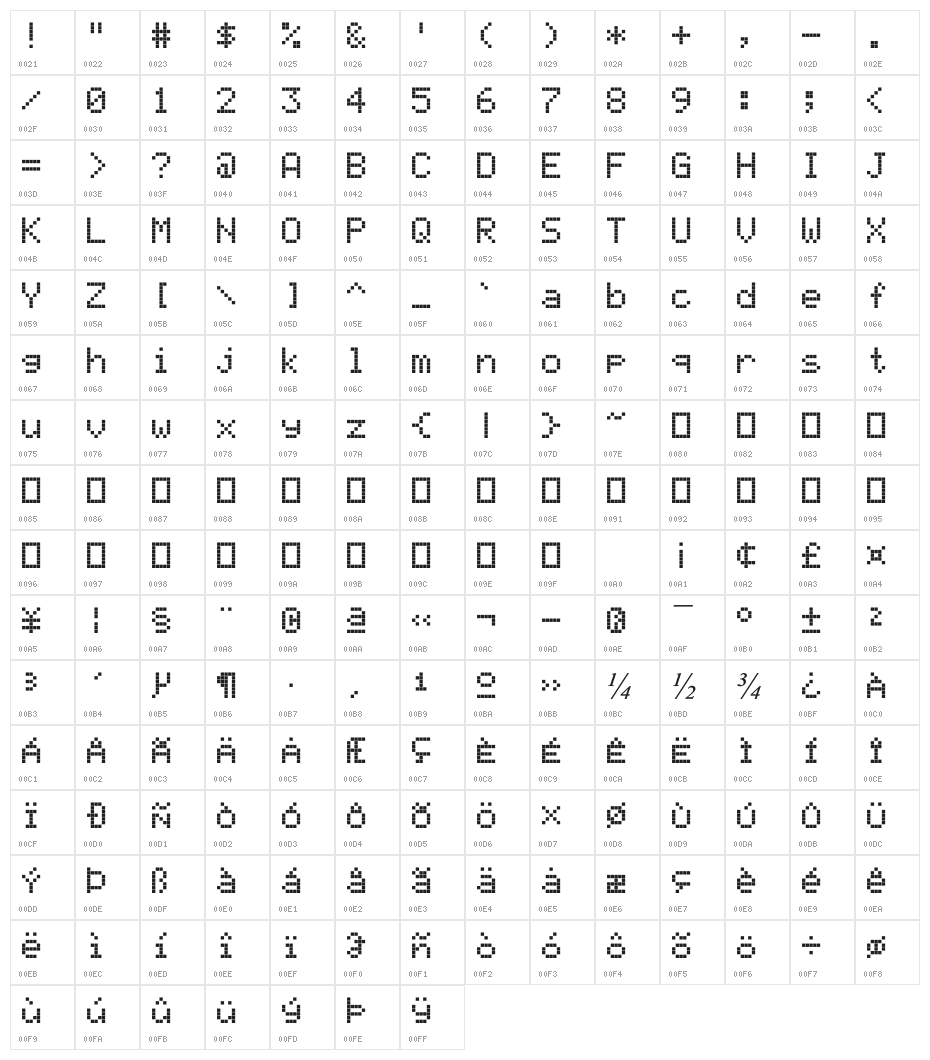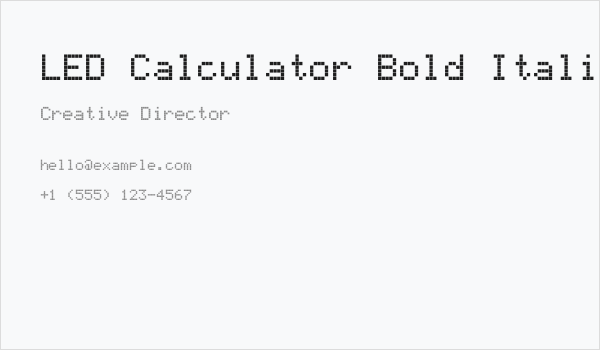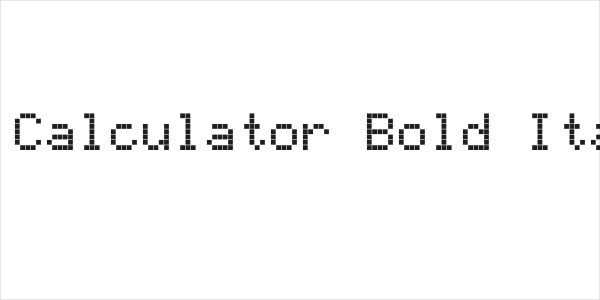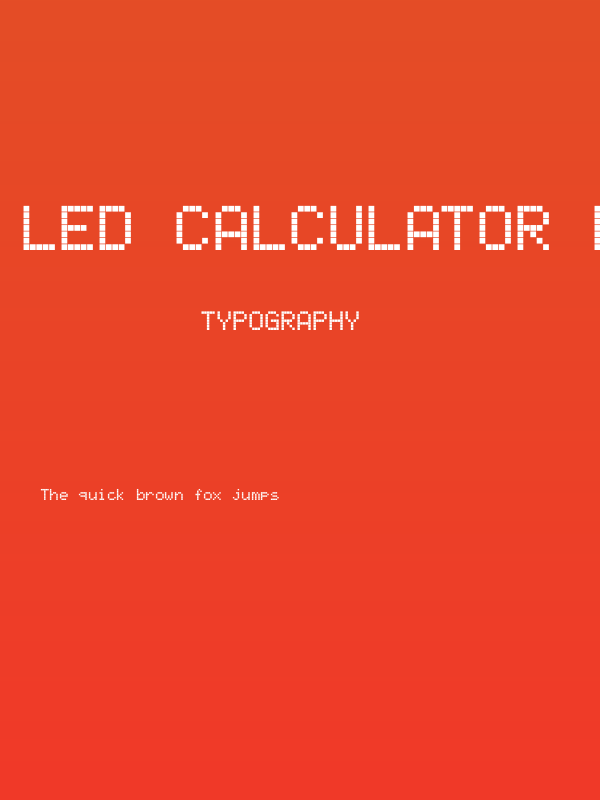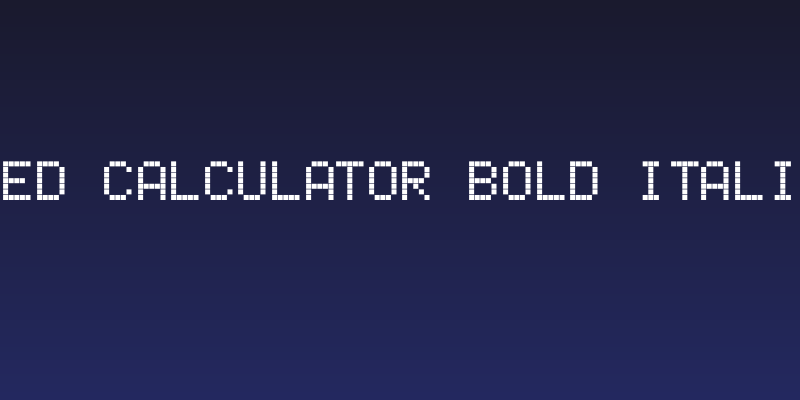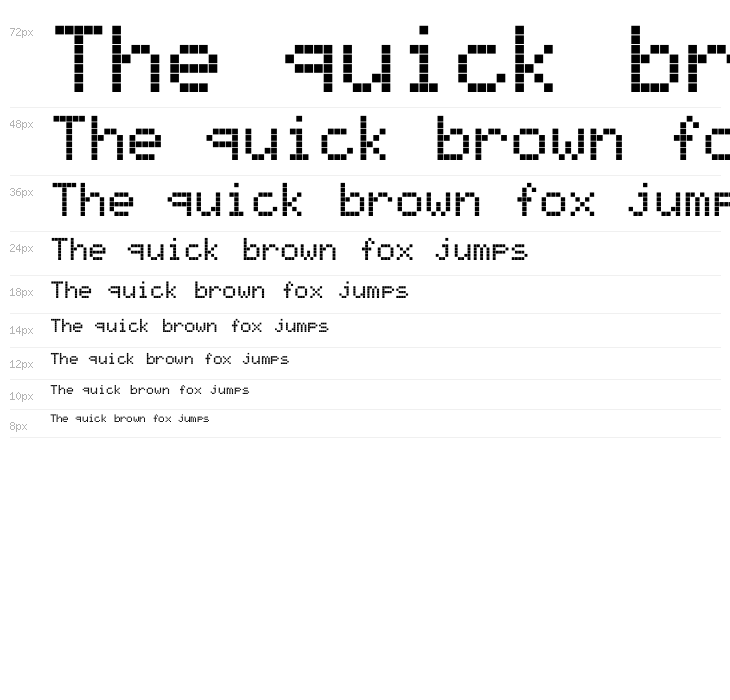
LED Calculator Bold Italic Font
LED Calculator Bold Italic Description
This font features a distinctive pixelated design reminiscent of LED displays and digital calculators. Each character is constructed from a grid of small squares, creating a retro, tech-inspired aesthetic. The uppercase and lowercase letters maintain a consistent blocky style, with slight variations in size and shape to distinguish them. Numbers and special characters follow the same pixelated pattern, ensuring uniformity across all glyphs. The bold and italic styling adds a dynamic touch, enhancing the font's visual impact while maintaining readability. This unique design is ideal for projects that require a digital or futuristic theme.
| Use Case | Headlines, Logos, Digital Interfaces |
| Proposed Projects | Ideal for digital-themed designs, tech-related branding, retro video games, and futuristic interfaces. |